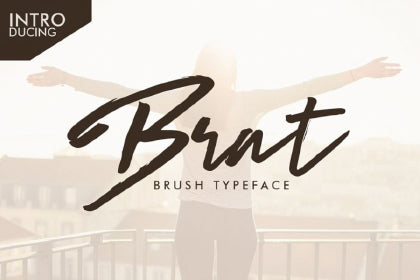
Today we're glad to feature this free brat script typeface. Download this typeface from the original source of Free Design Resources. Easily amaze your audience with this fancy font and make your graphic designs pop up from the crowd.